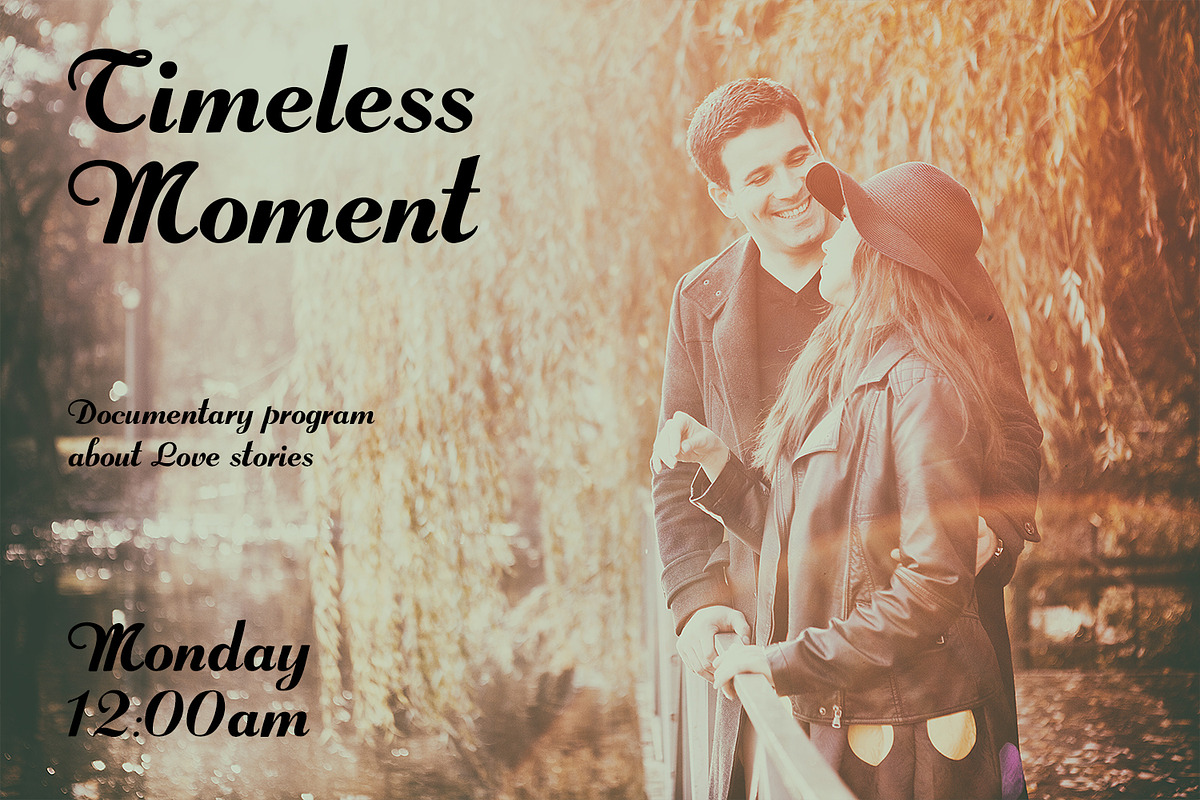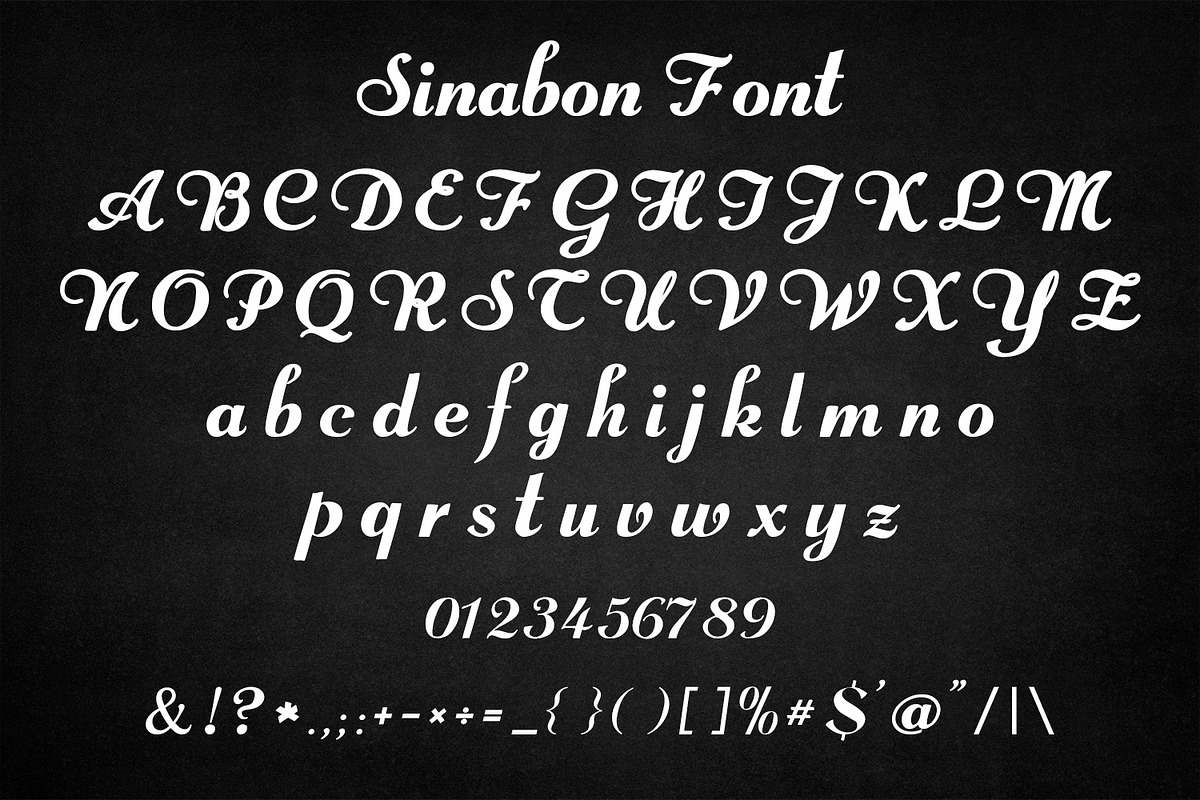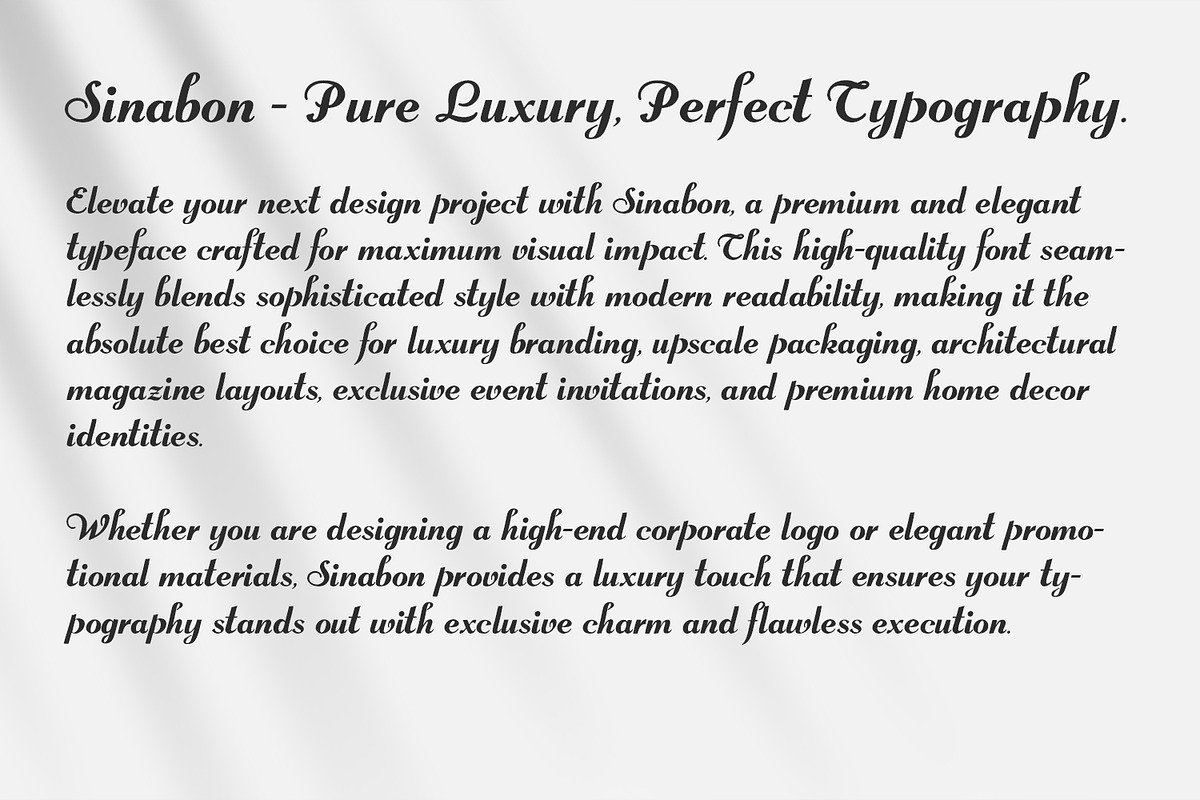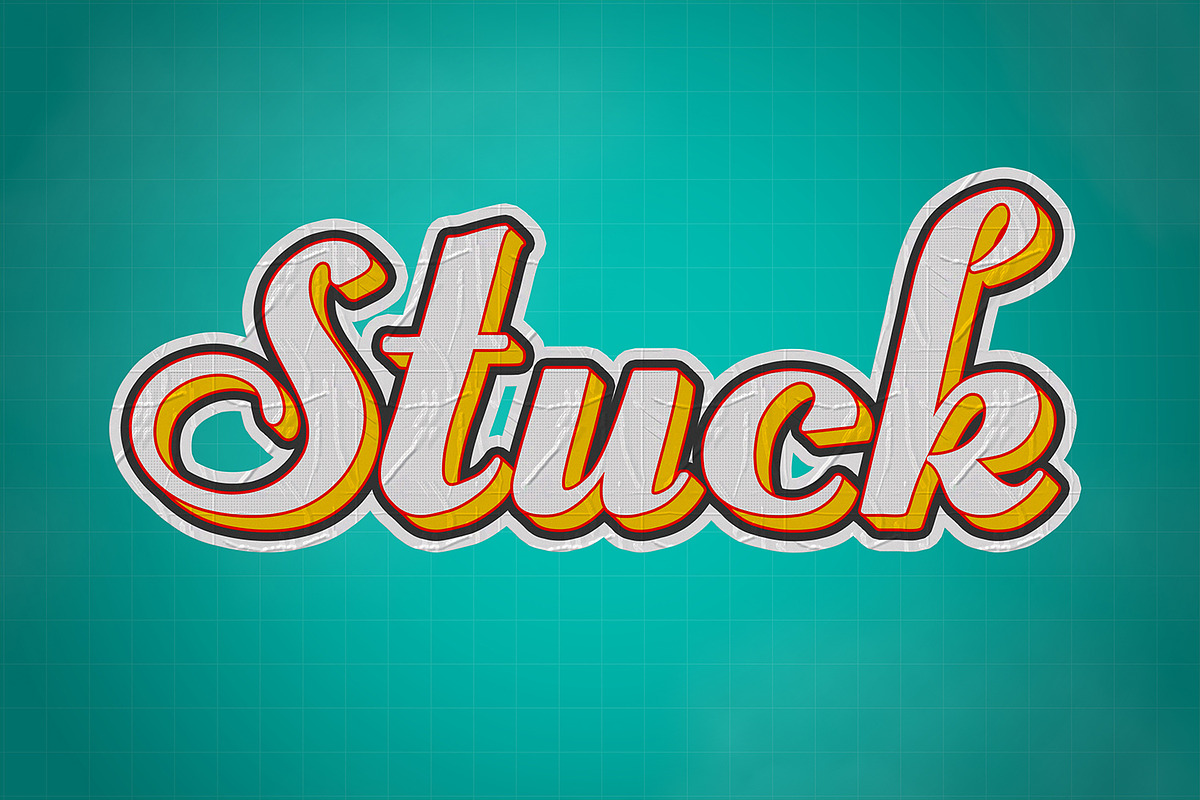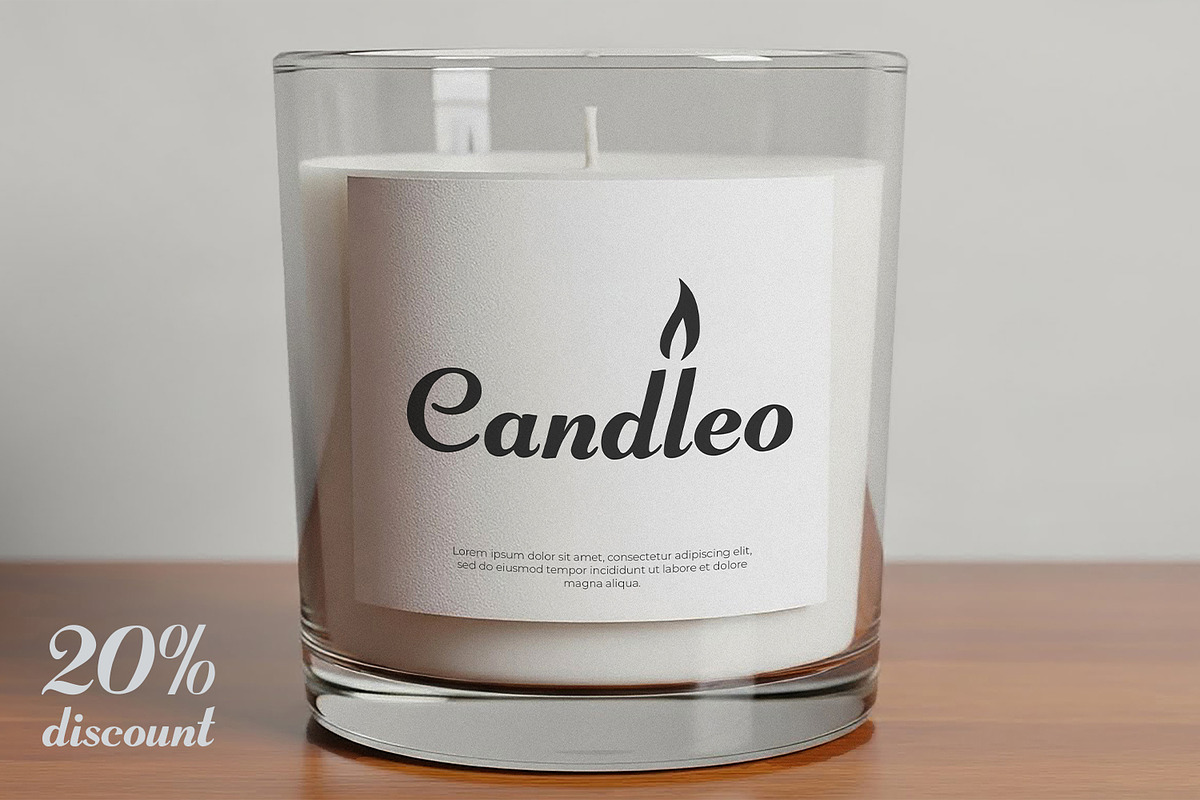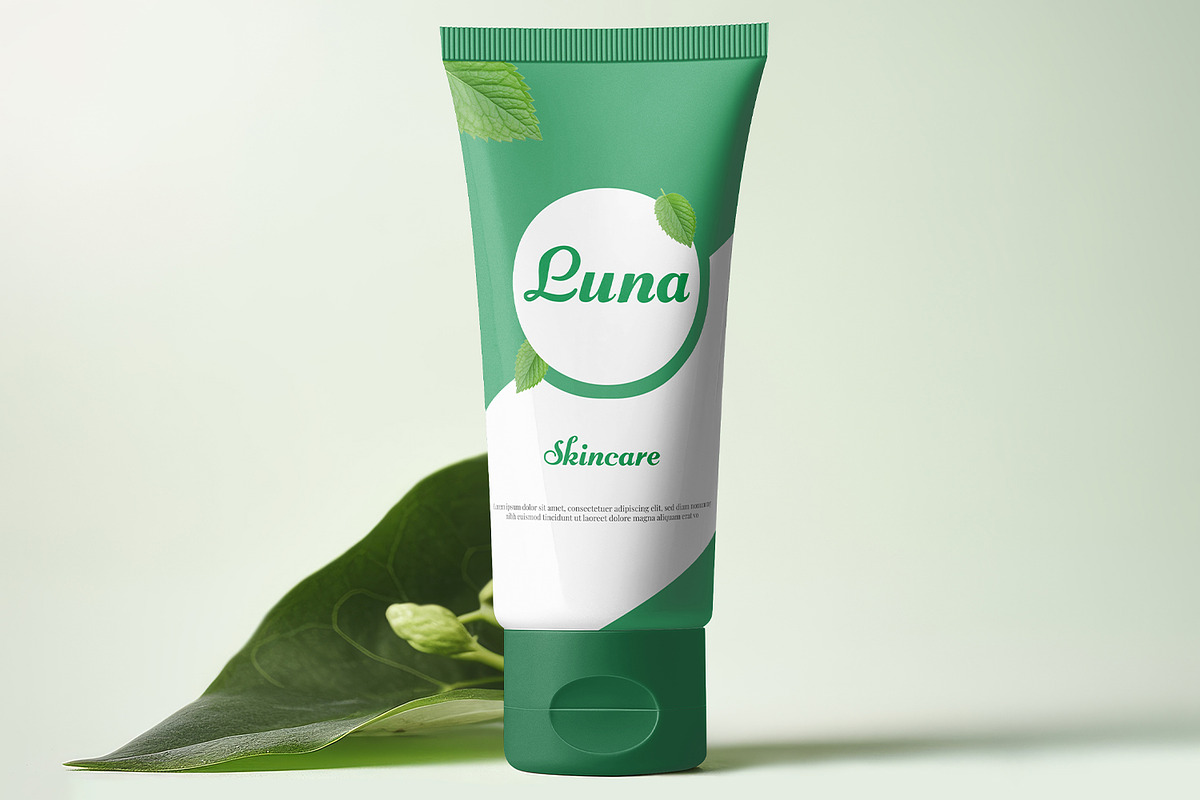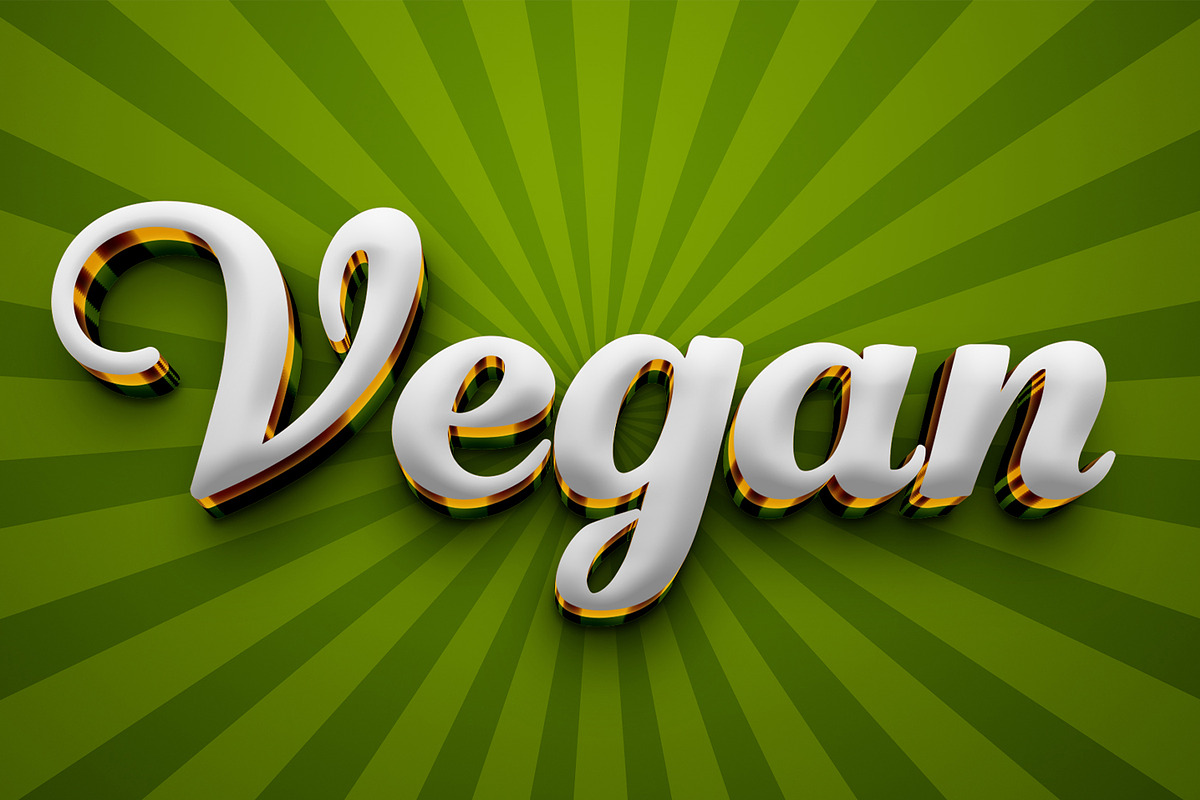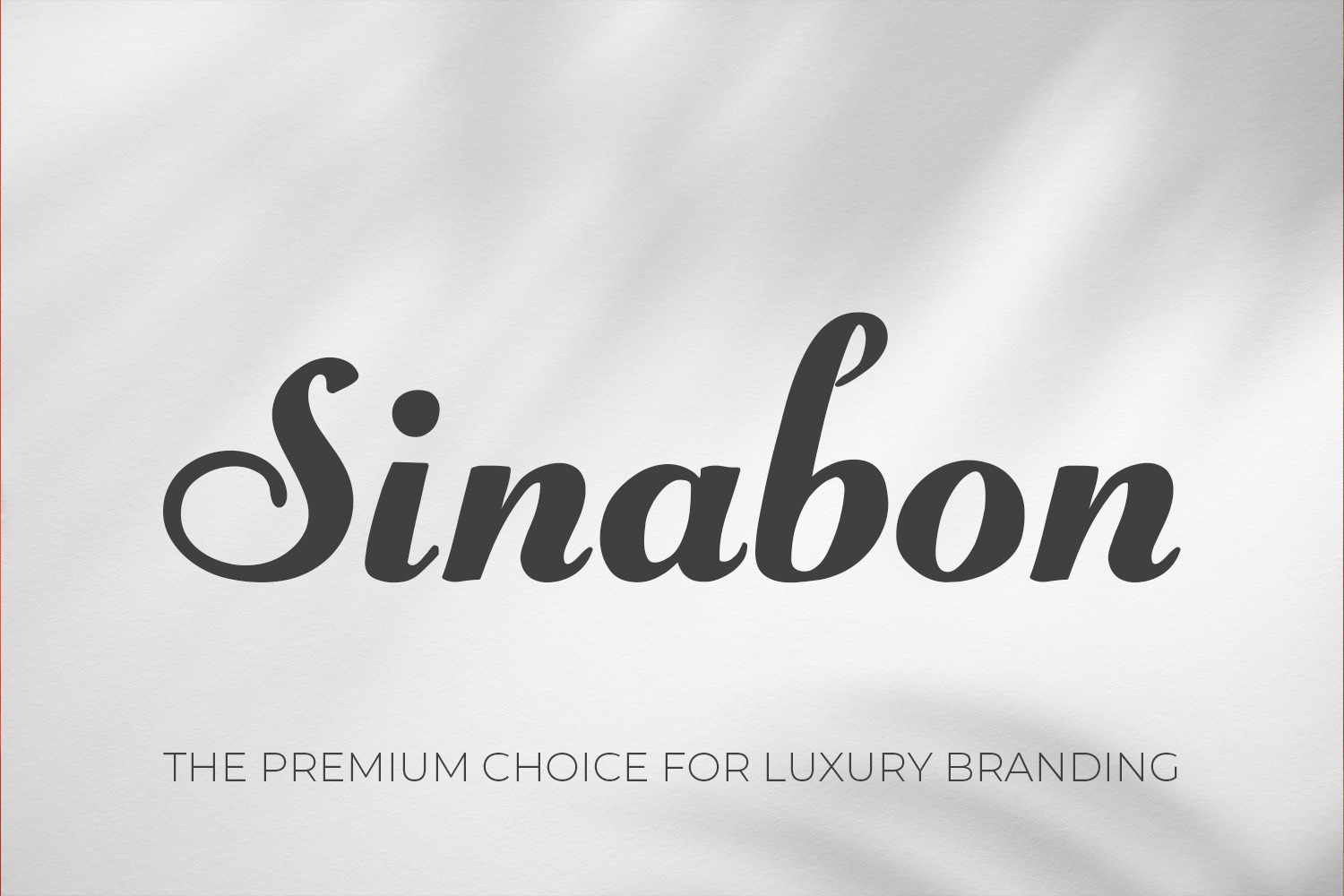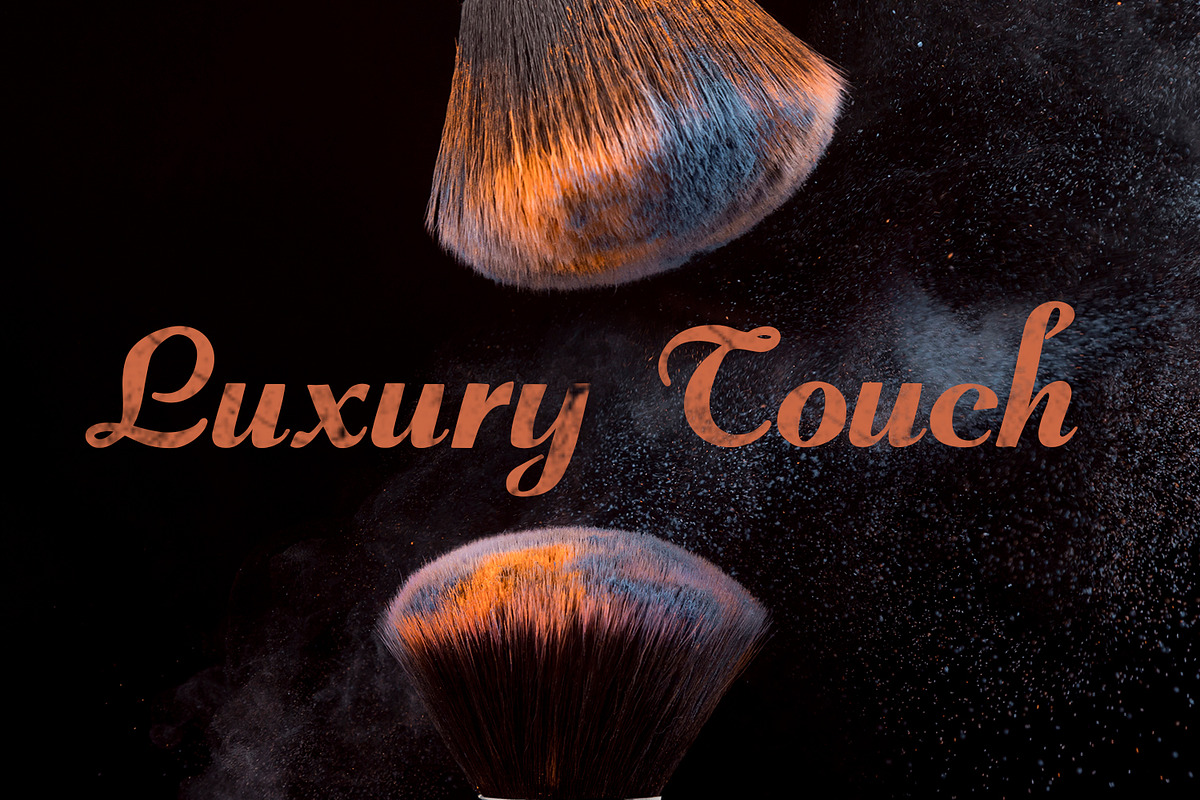
Sinabon Elegant Cursive Typeface
Discover the ultimate elegance with Sinabon, a stunning premium script font designed to give your creative projects a highly sophisticated and luxurious feel. Crafted with beautiful, sweeping curves and flawless readability, this typeface is the perfect choice for high-end fashion branding, beauty and cosmetic packaging, elegant wedding invitations, boutique logos, and chic lifestyle magazines.
Whether you are creating a romantic save-the-date card, stylish organic skincare labels, or standout social media quotes, Sinabon adds a touch of pure class and exclusive charm to every word. Its versatility makes it incredibly easy to use for both digital and print designs, ensuring your typography always looks professional and eye-catching.